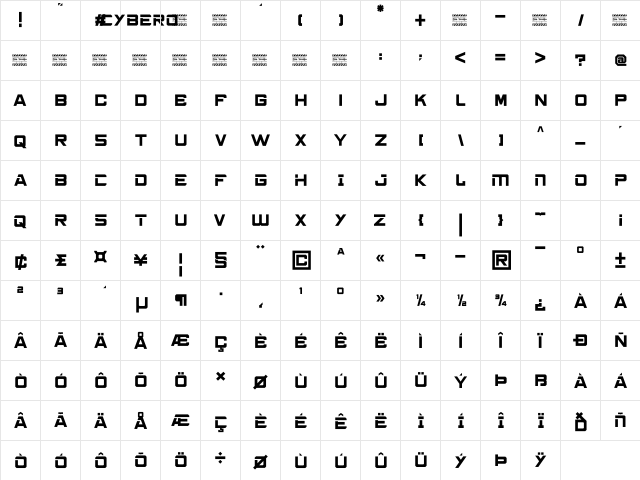
cybero Personal Use Regular
| Designer | donis miftahudin |
Design Context for cybero Personal Use Typeface
cybero Personal Use channels digital-age aesthetics through its sharp, structured letterforms — ideal for brands that want to signal innovation.
Pro Tip: Try cybero Personal Use with generous letter-spacing in UI labels and navigation — the geometric forms benefit from room to breathe.